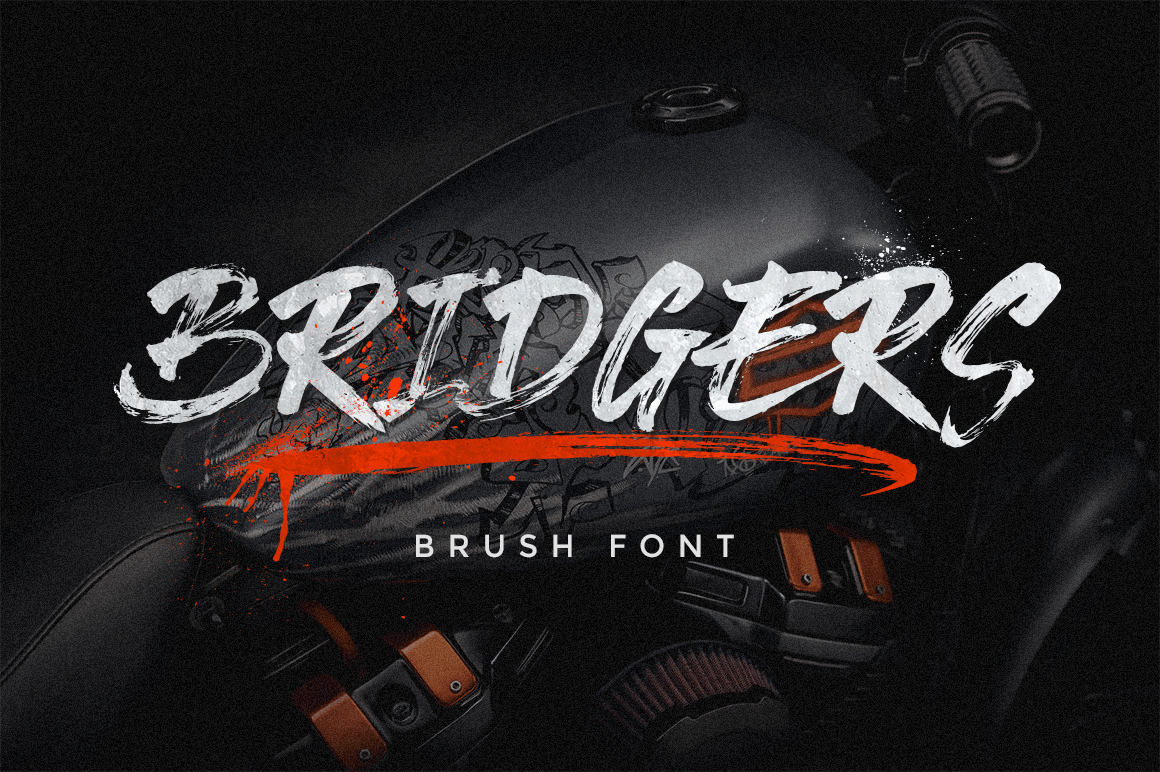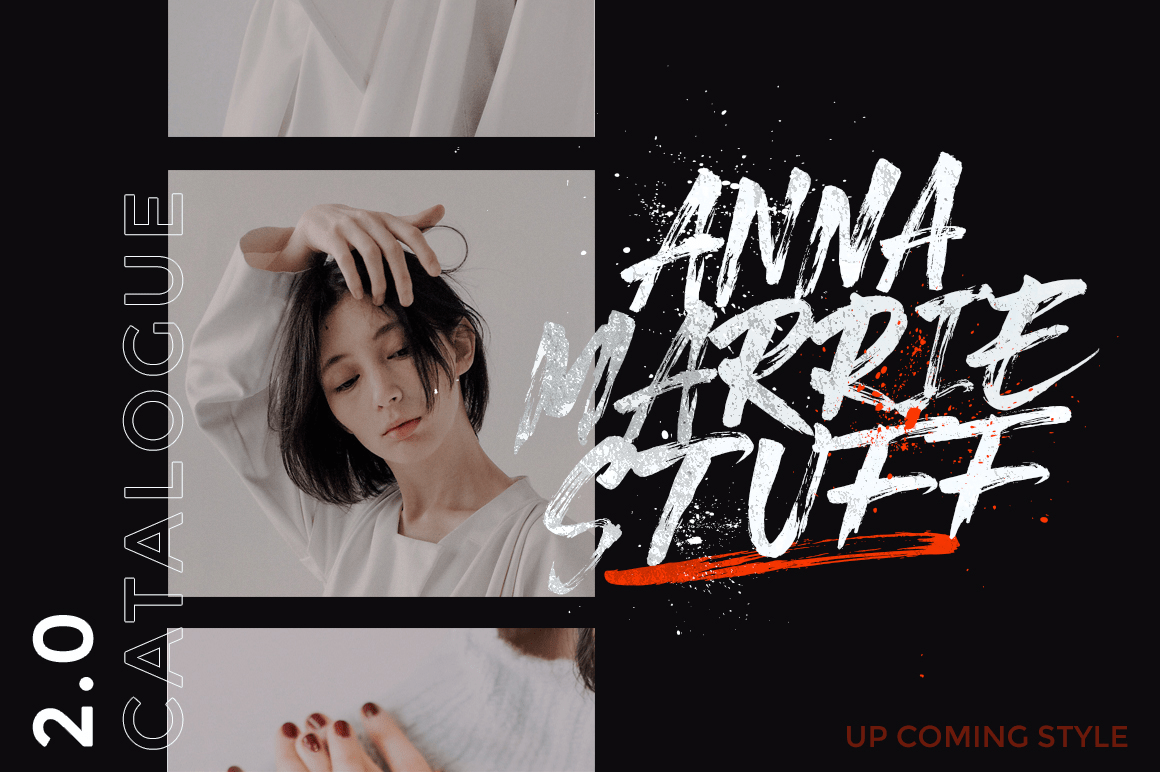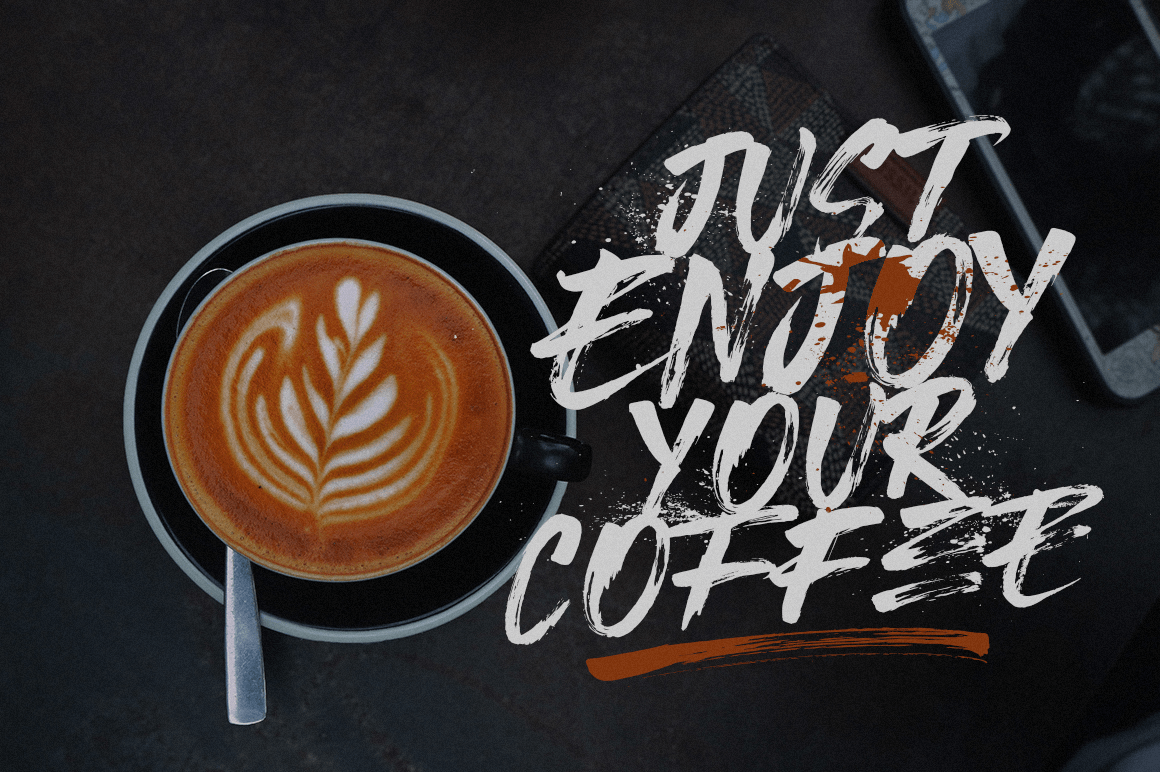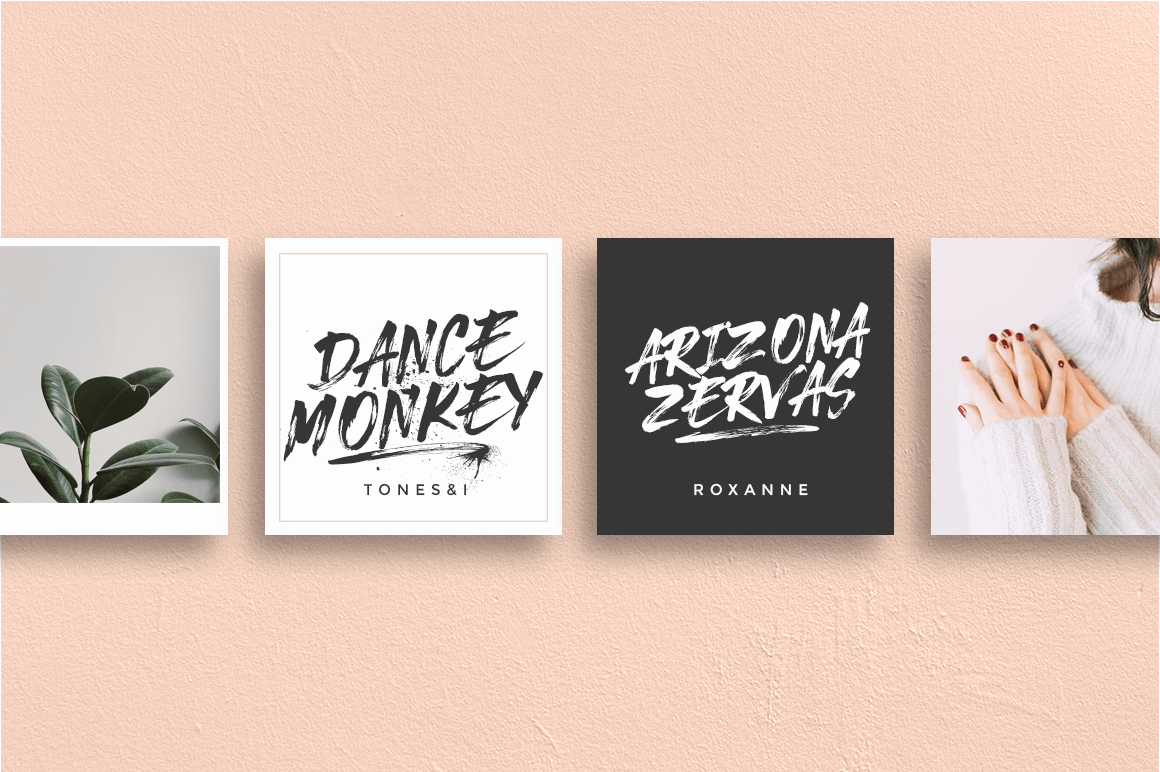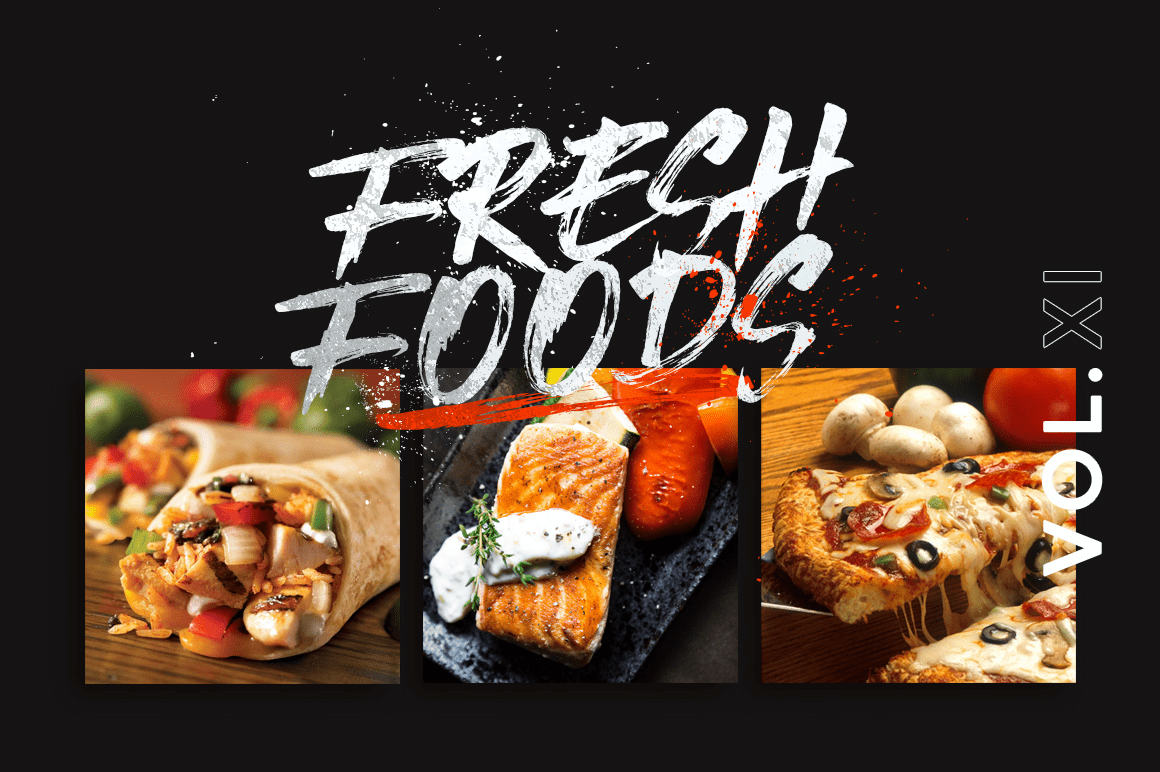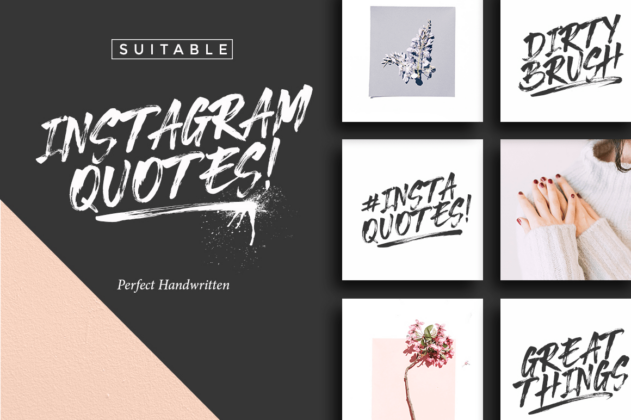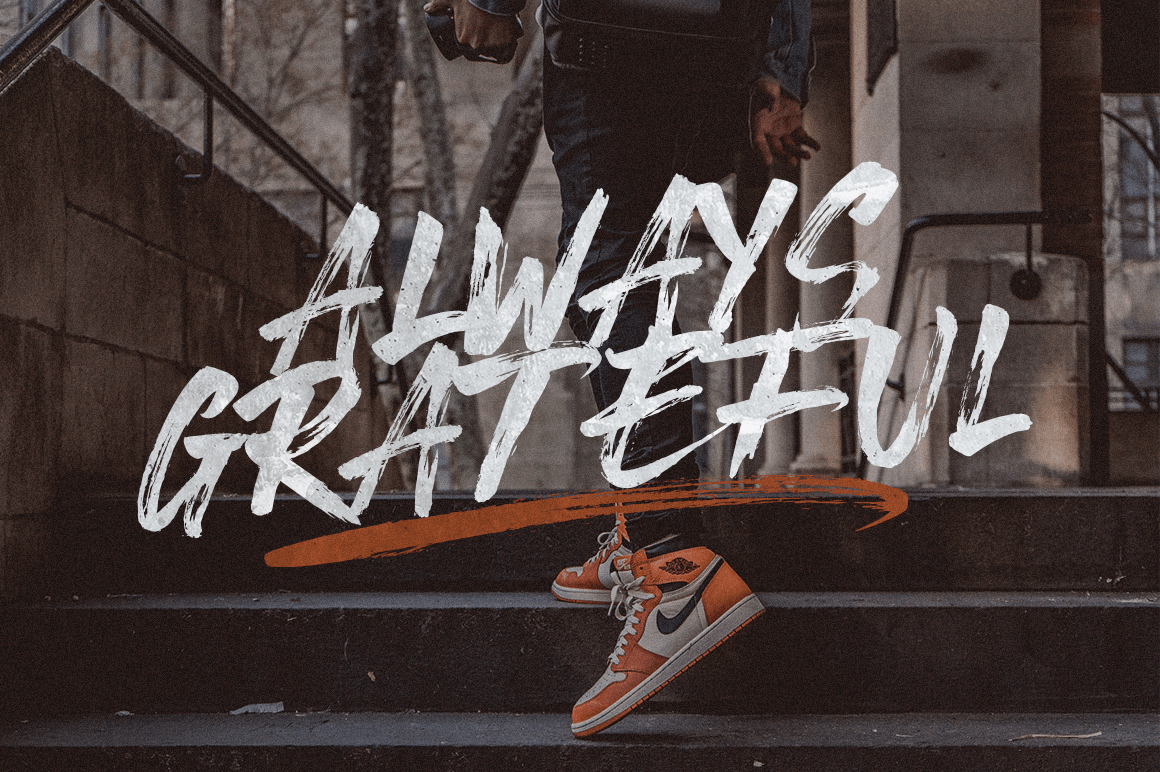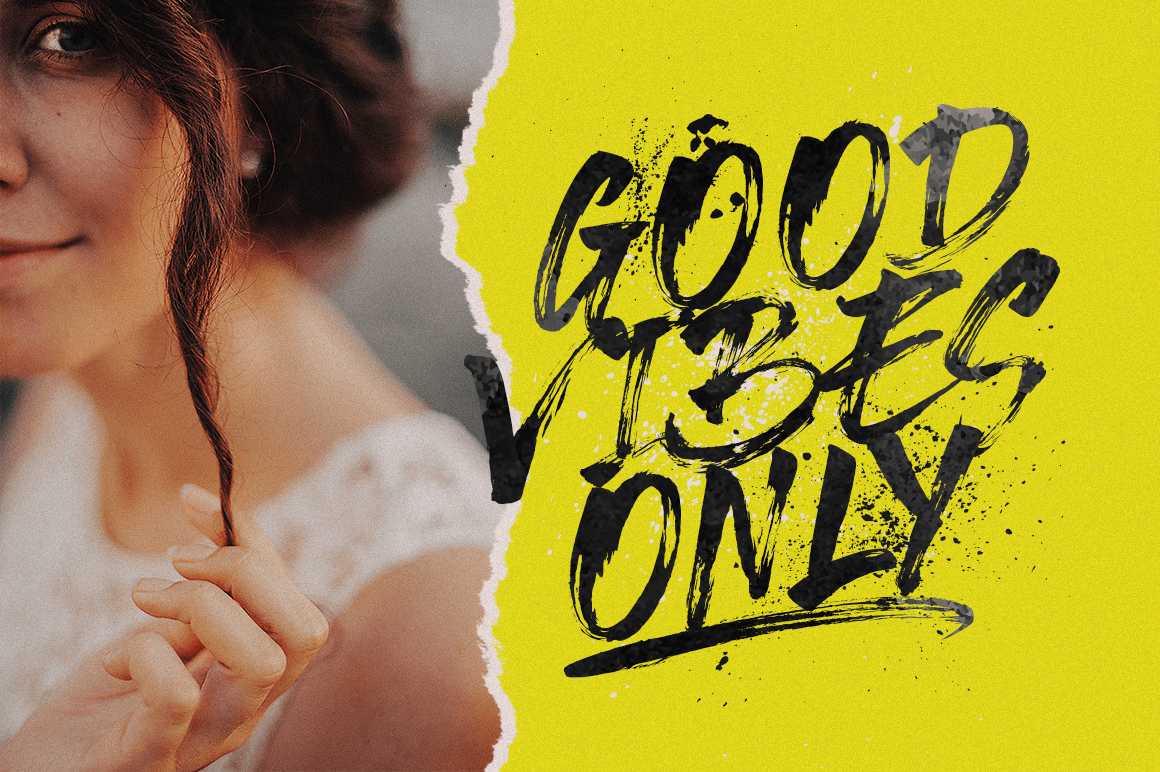
HomeFont BrosContemporaryBridgers ContemporarySans SerifUrbanDistressed Bridgers FacebookXPinterestWhatsApp 1 of 9 About Bridgers Bridges is a hand-painted uppercase brush font and includes swashes. Bridges works well for logos, name tags, handwritten quotes, product packaging, merchandise, social media, greeting cards and much more.  DOWNLOAD NOW People also explored Two Tote Bag Mockup Grocery Bags Wilingtone Font Black Widow Orange Girl Font Jarhead Font Richard Keild Font Skinny Mellow Font Legendarie Font Smile Galaxy Font 204 0 TagsBridgers Font Previous articleRegulator ANext articleOliviar Sans LEAVE A REPLY Cancel reply Comment: Please enter your comment! Name:* Please enter your name here Email:* You have entered an incorrect email address! Please enter your email address here Website: Save my name, email, and website in this browser for the next time I comment. Personal Use Free Ciggs Personal Use Free Read more about this font Hagia Signal Personal Use Free Read more about this font Sunshine Tropical Font Personal Use Free Read more about this font Hysteria Santa Personal Use Free Read more about this font BLOG Using Fonts in Digital Marketing: Tips to Strengthen Your Brand Identity In the realm of digital marketing, every visual element plays a crucial role in shaping a brand's identity, and fonts are no exception. The... The 10 Best Handwriting Fonts to Add Personality to Your Designs Best Fonts for T-Shirt Design – Top 2025 Picks Top 7 Google Fonts Alternatives for Faster and Privacy-Friendly Web Design (2025)